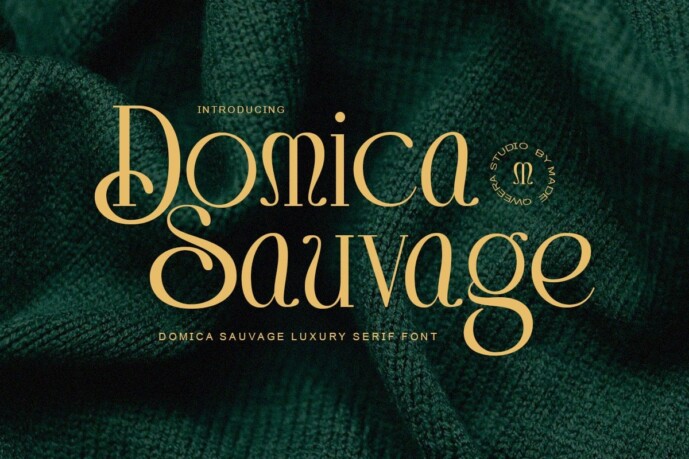
Domica Sauvage Font
Domica Sauvage – Modern Elegant Luxury Serif Font for Sophisticated Branding
Domica Sauvage is an exquisite serif typeface that embodies contemporary luxury with its refined elegance and bold character. Featuring both Regular and Italic styles with premium alternates and ligatures, this font is meticulously crafted for high-end branding, luxury logos, premium packaging, and editorial designs that demand both prestige and visual impact.
Where Modern Luxury Meets Timeless Sophistication
With its sharp serif details and fluid italic variant, Domica Sauvage delivers unparalleled versatility for elite brands. The carefully designed alternates and ligatures enable flawless typographic compositions that radiate exclusivity and modern refinement.